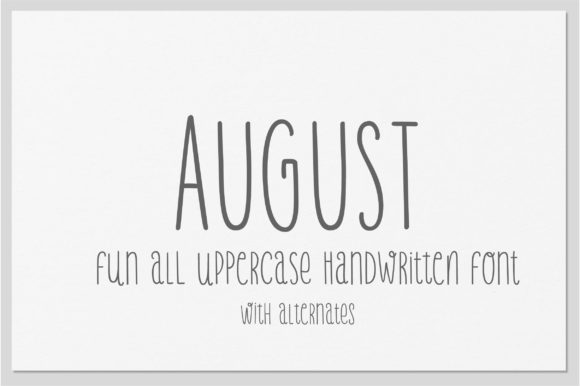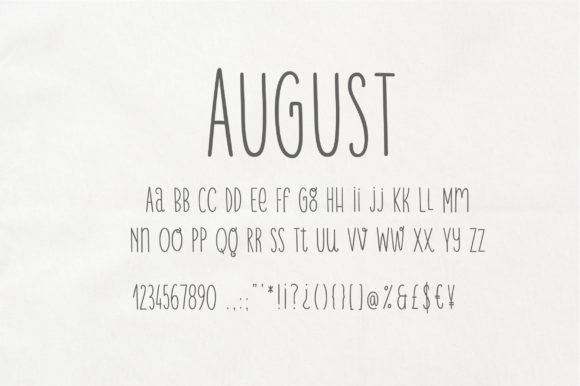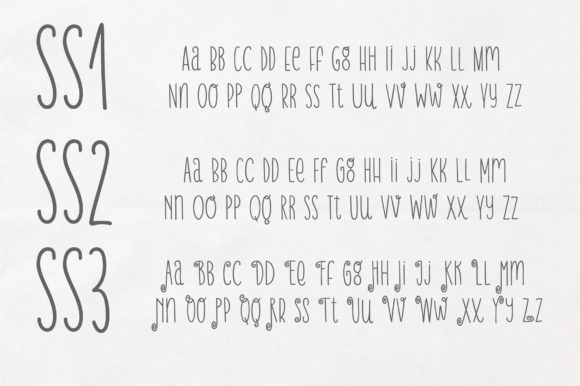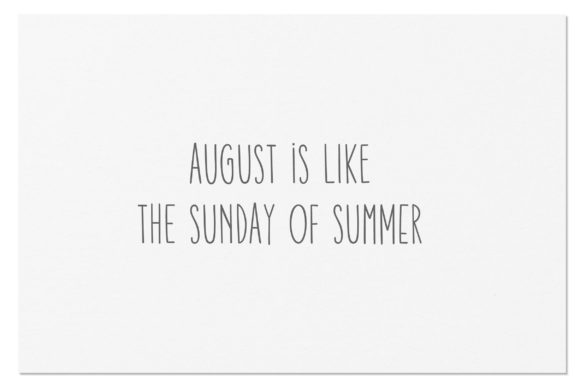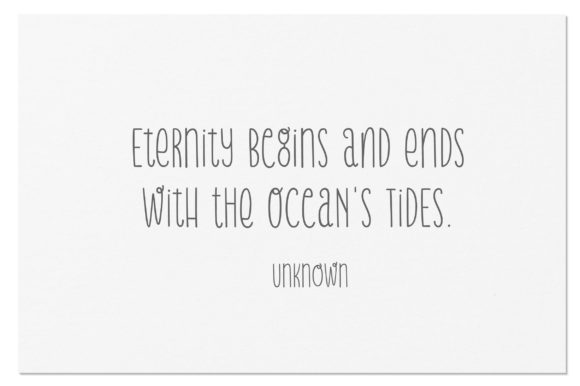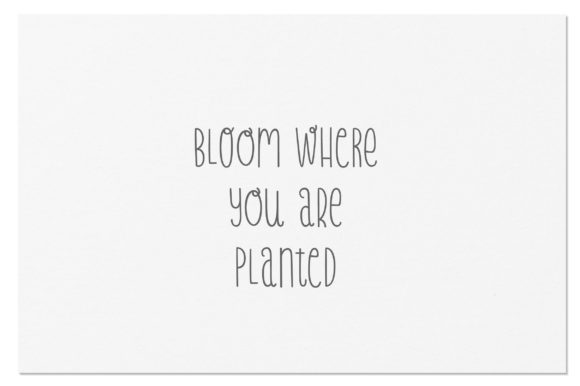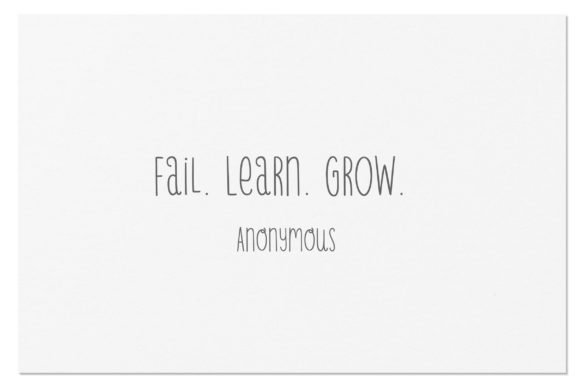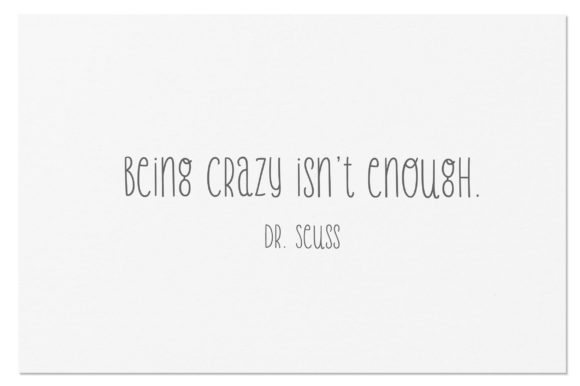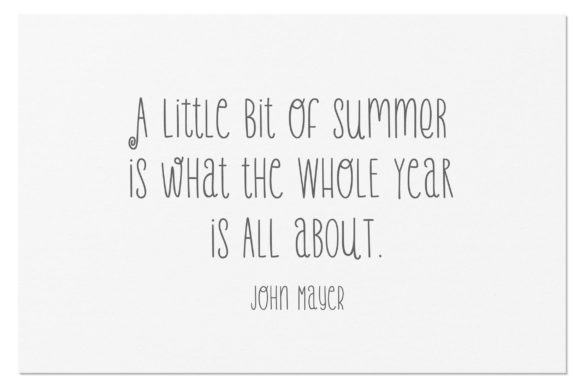
August Font
About August Font
August is a cute and whimsical lettered handwritten font that can be used for all chalkboard quotes or teaching material! Its authentic look will add a personal and realistic feel to your designs.